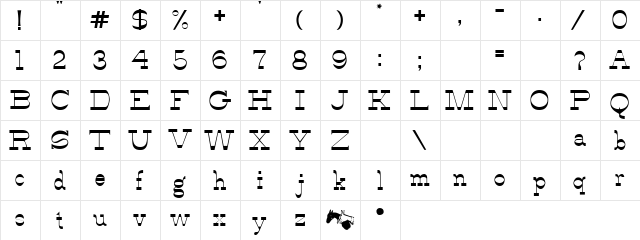
Alfredo's Dance Regular
CopyrightThis is the first font created by Ray Buetens based on the 19th C. font Italian Print. Lawn Dart Fonts.
Design Context for Alfredo's Dance Typeface
Alfredo's Dance takes a measured approach to typography — its balanced proportions and neutral character make it a reliable workhorse for both digital and print work.